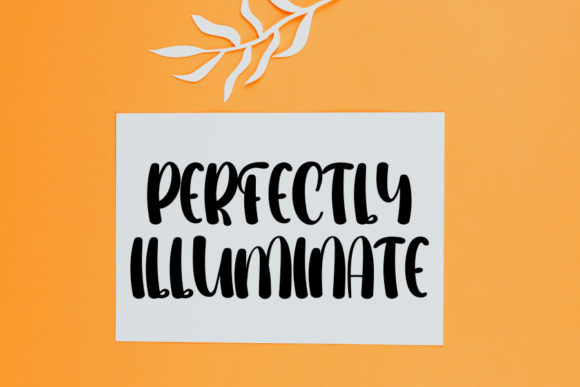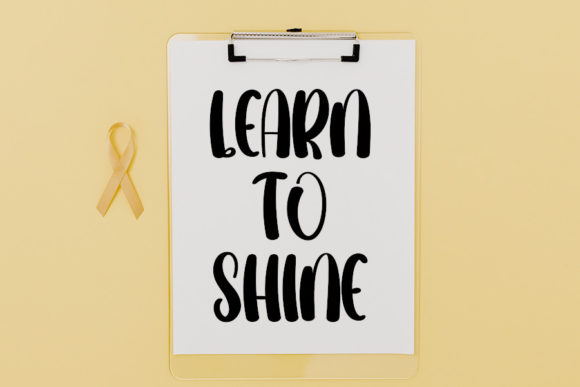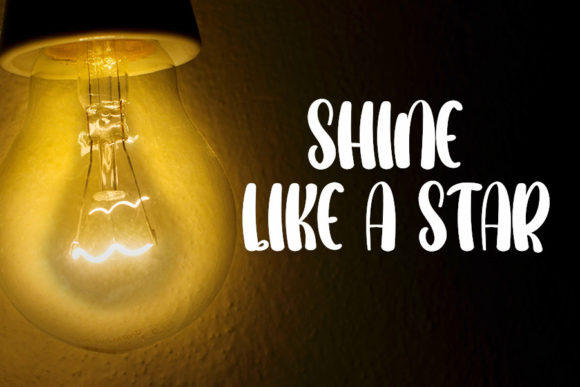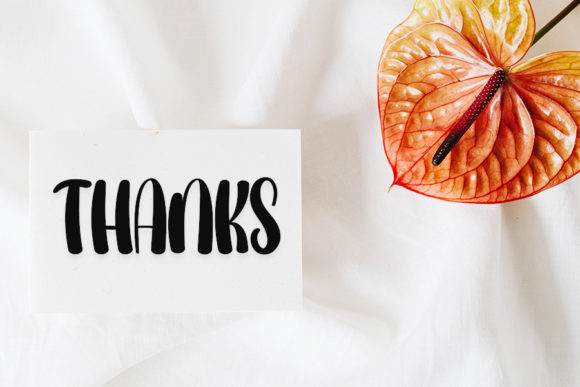
Star Back Font
About Star Back Font
Star back is a stylish and bold handwritten font with a contemporary atmosphere and impeccable form, inspired by a timeless classic calligraphy. It will look outstanding in a wide range of contexts.